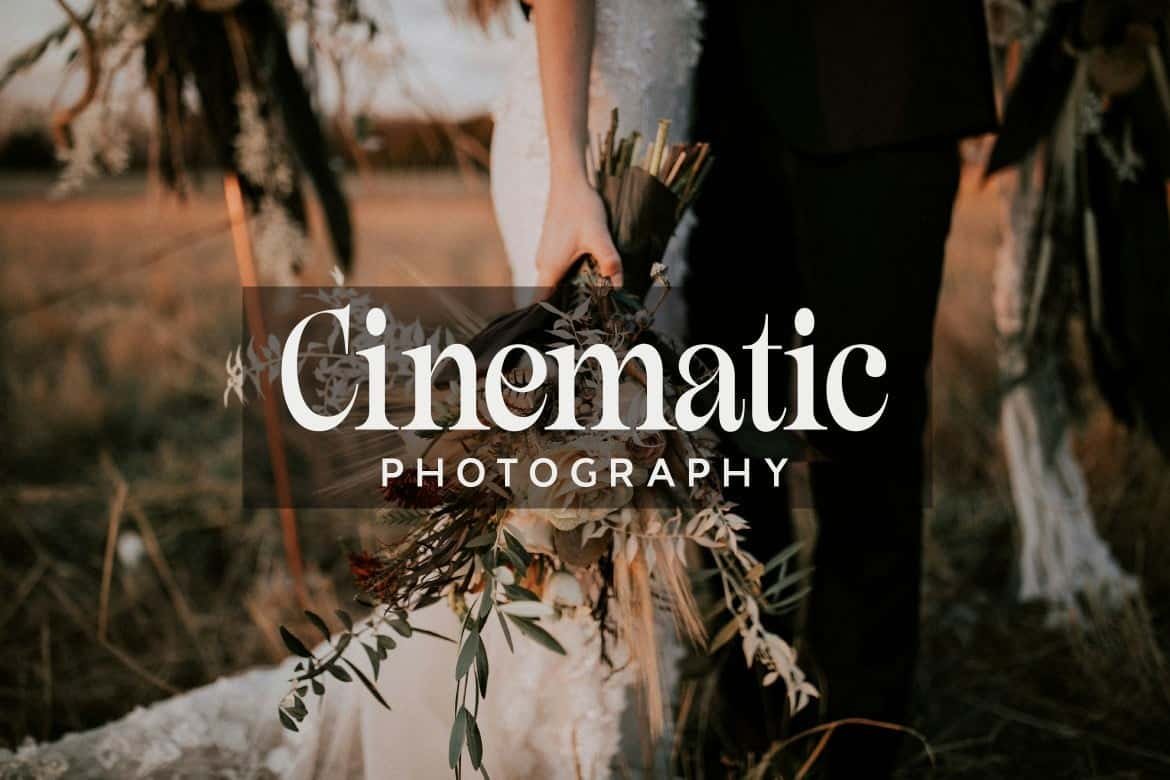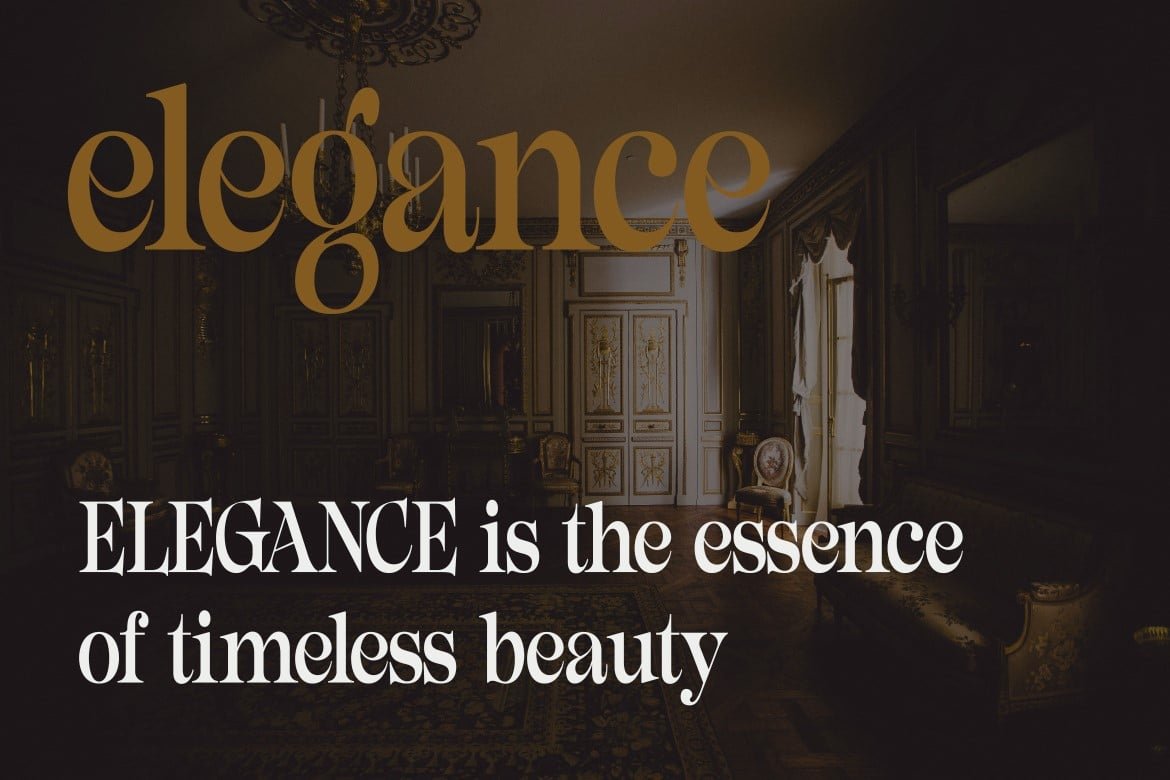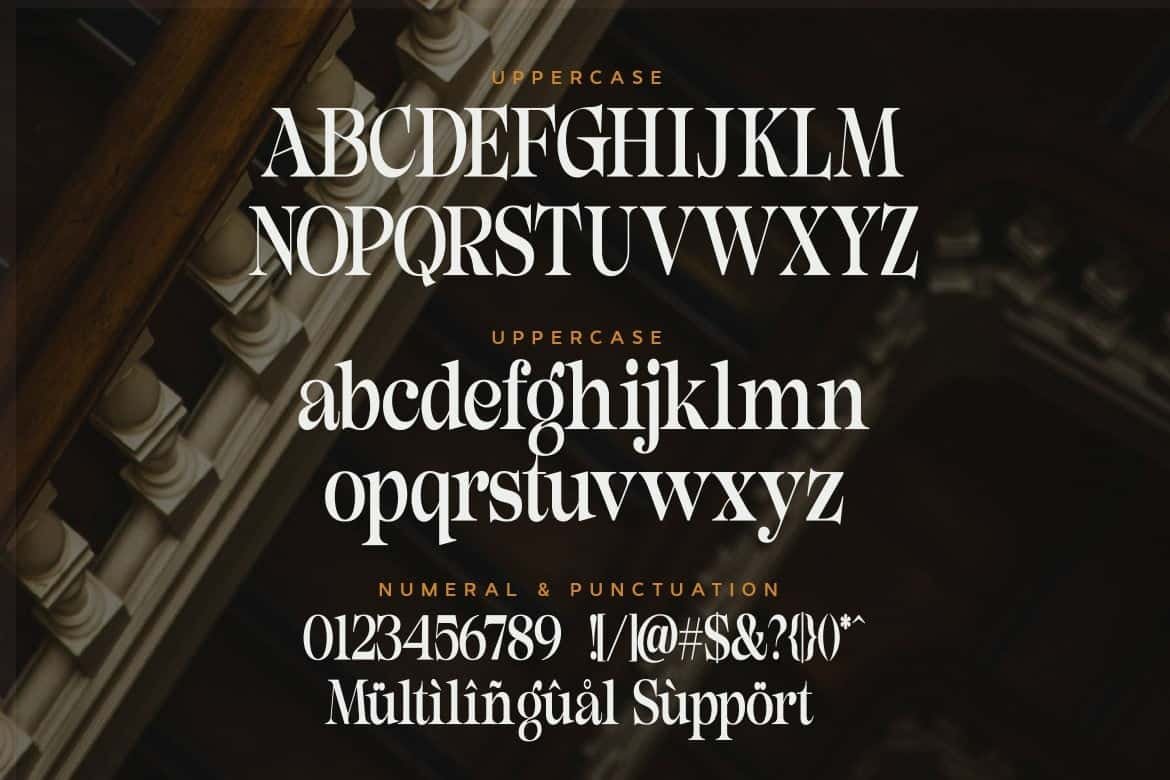
Luxury Elegance – Modern Serif Font
Luxury Elegance is a modern serif font that blends timeless sophistication with a fresh, contemporary touch. Each letter is designed with graceful curves and refined contrast, making it perfect for premium branding and high-end visual projects.
Font Features:
Uppercase & Lowercase – Ideal for creating balanced titles, subtitles, and body text.
Multilingual Support– Covers multiple languages for international design needs.
Perfect For:
Branding & visual identity
Product packaging & labels
Invitations & stationery
Posters, flyers & marketing materials
Projects that require a touch of elegance and prestige
With its polished details and versatile style, Luxury Elegance can easily adapt to a wide range of creative works. From minimal modern layouts to rich, decorative designs, it delivers a luxurious and professional impression in every project.